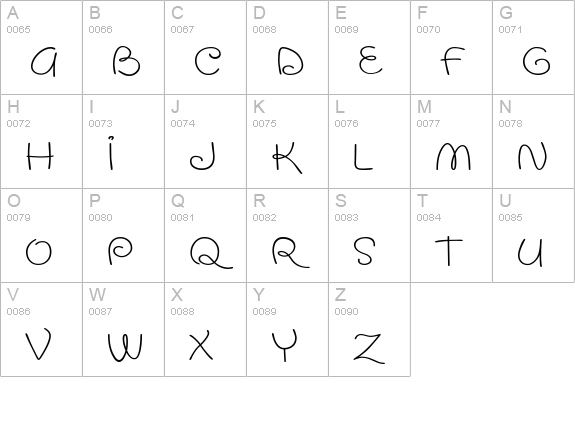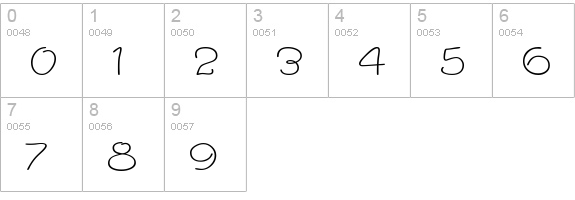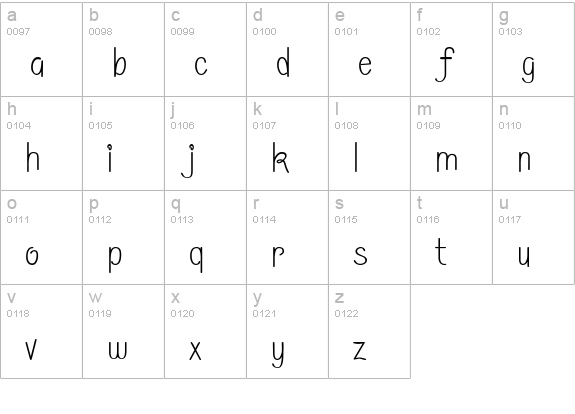
Morning Limerick BTN Lt font is a charming and whimsical typeface that exudes a playful and friendly vibe. With its delicate lines and elegant curves, this font is perfect for adding a touch of creativity to your projects. Whether you're designing a greeting card, creating a logo, or crafting a poster, Morning Limerick BTN Lt font will bring a sense of joy and warmth to your work. Best of all, Morning Limerick BTN Lt font is available for free download at FontsMarket.com. This means you can easily access this delightful font and use it in your designs without any cost. Don't miss out on the opportunity to enhance your projects with the unique charm of Morning Limerick BTN Lt font – download it today and let your creativity soar!